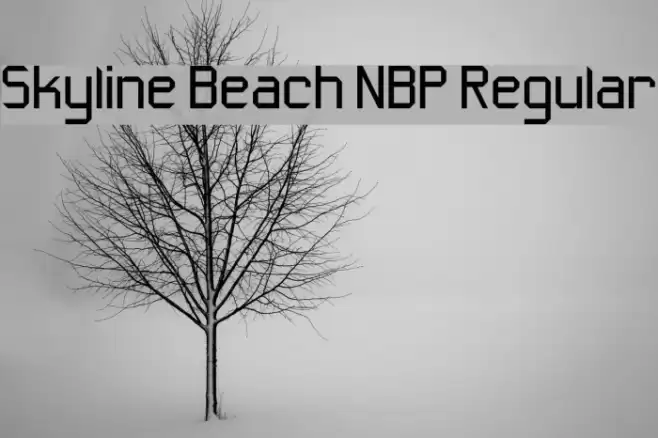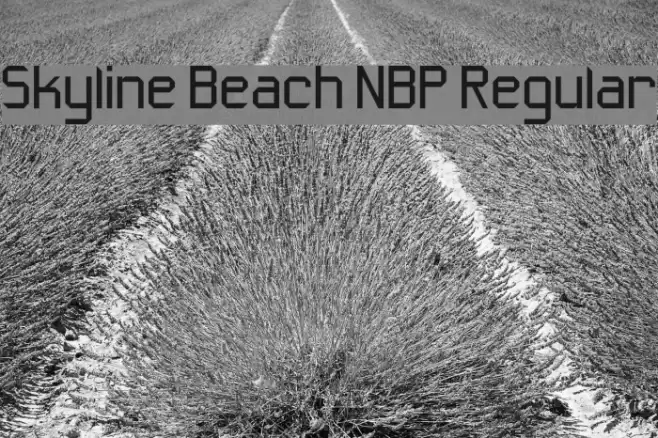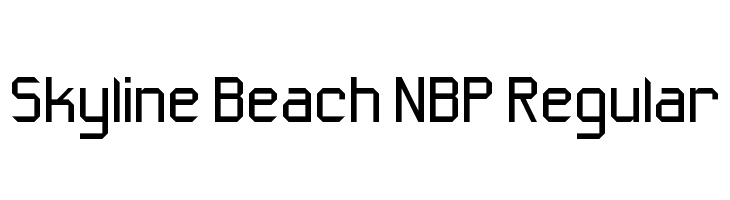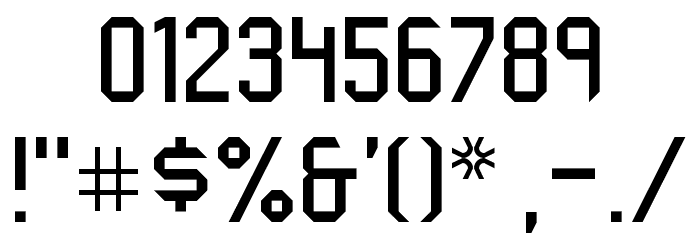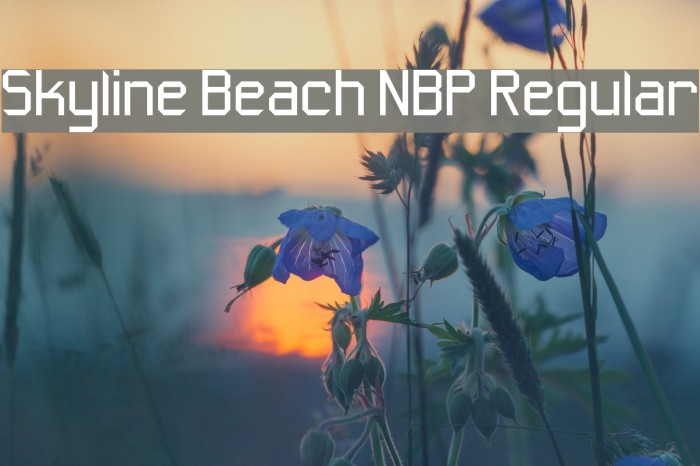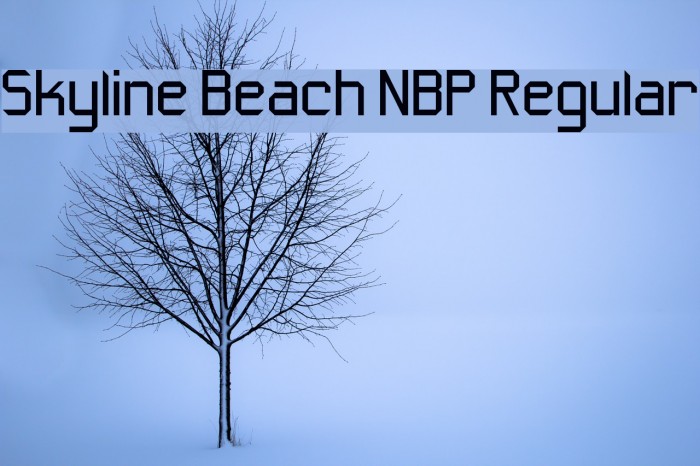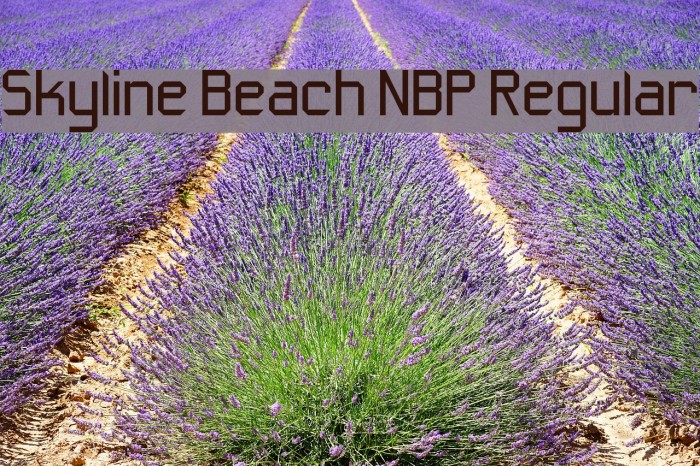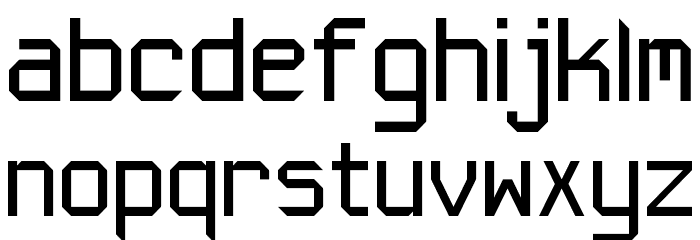
Skyline Beach NBP Regular Font
Skyline Beach NBP Regular Description
This font features a geometric and angular design, characterized by its sharp edges and straight lines. The uppercase and lowercase letters maintain a consistent height, giving it a uniform appearance. The numerals and special characters follow the same angular style, making the font cohesive across all characters. The design is reminiscent of digital or futuristic themes, with a modern and edgy aesthetic. Its unique structure makes it stand out, suitable for projects that require a bold and distinctive look.
- Proposed Projects: Ideal for tech-related branding, futuristic posters, video game titles, and digital media.